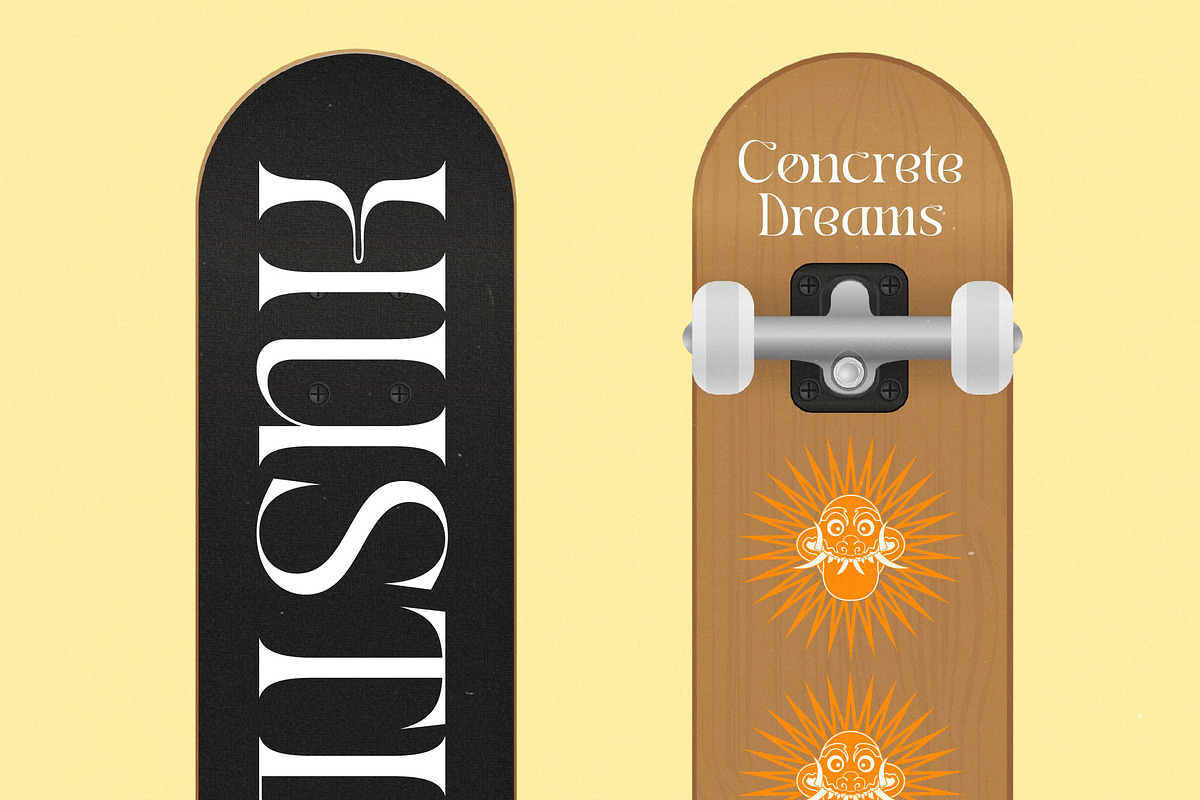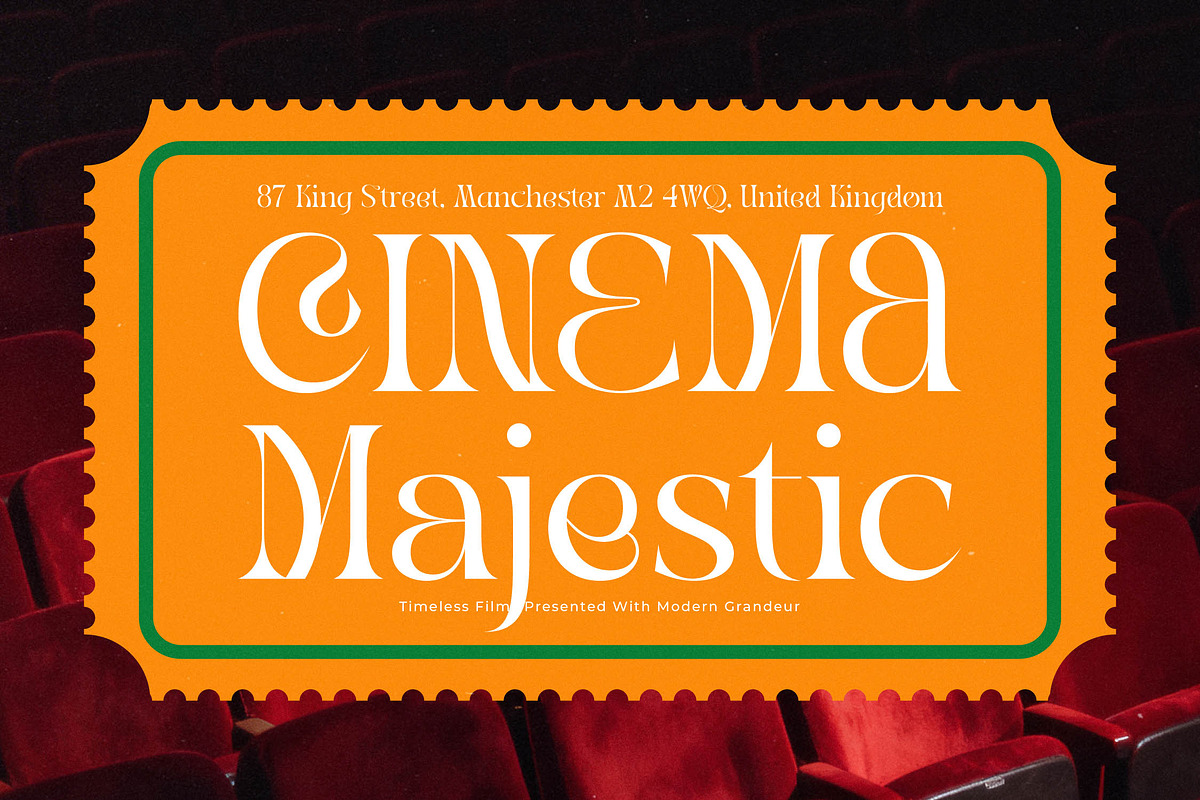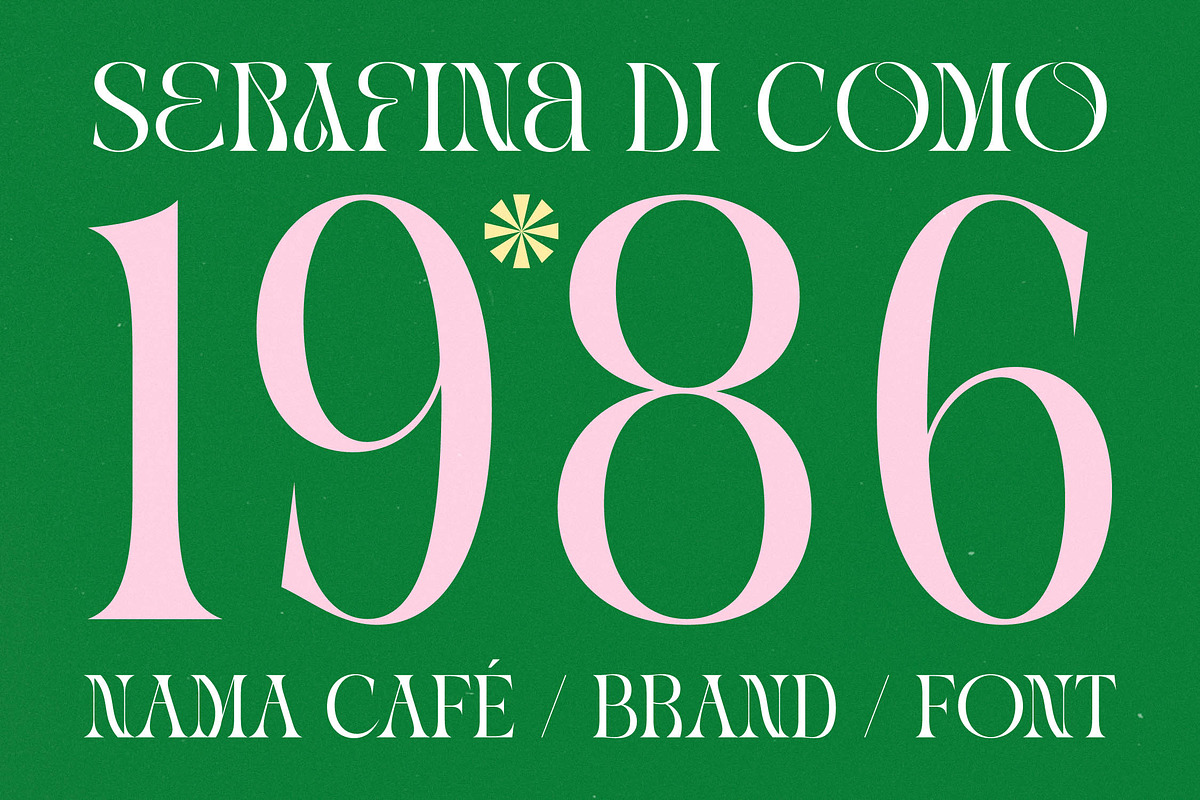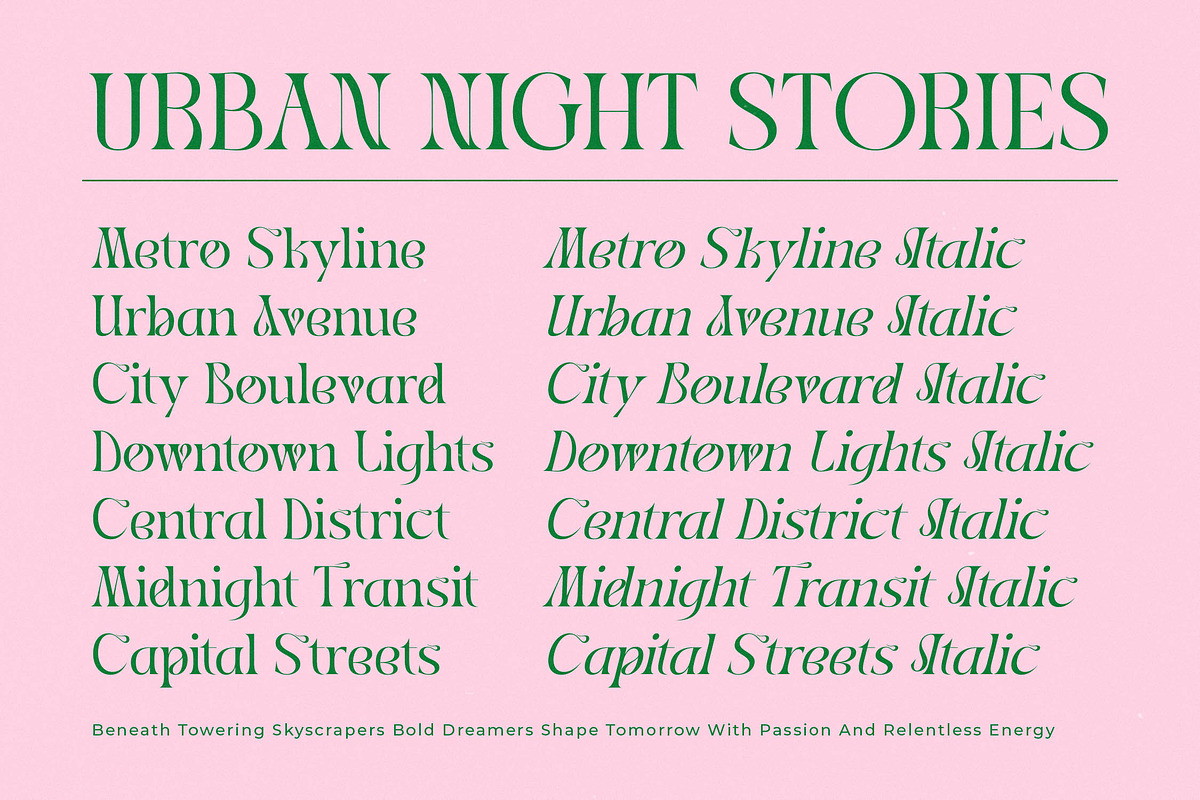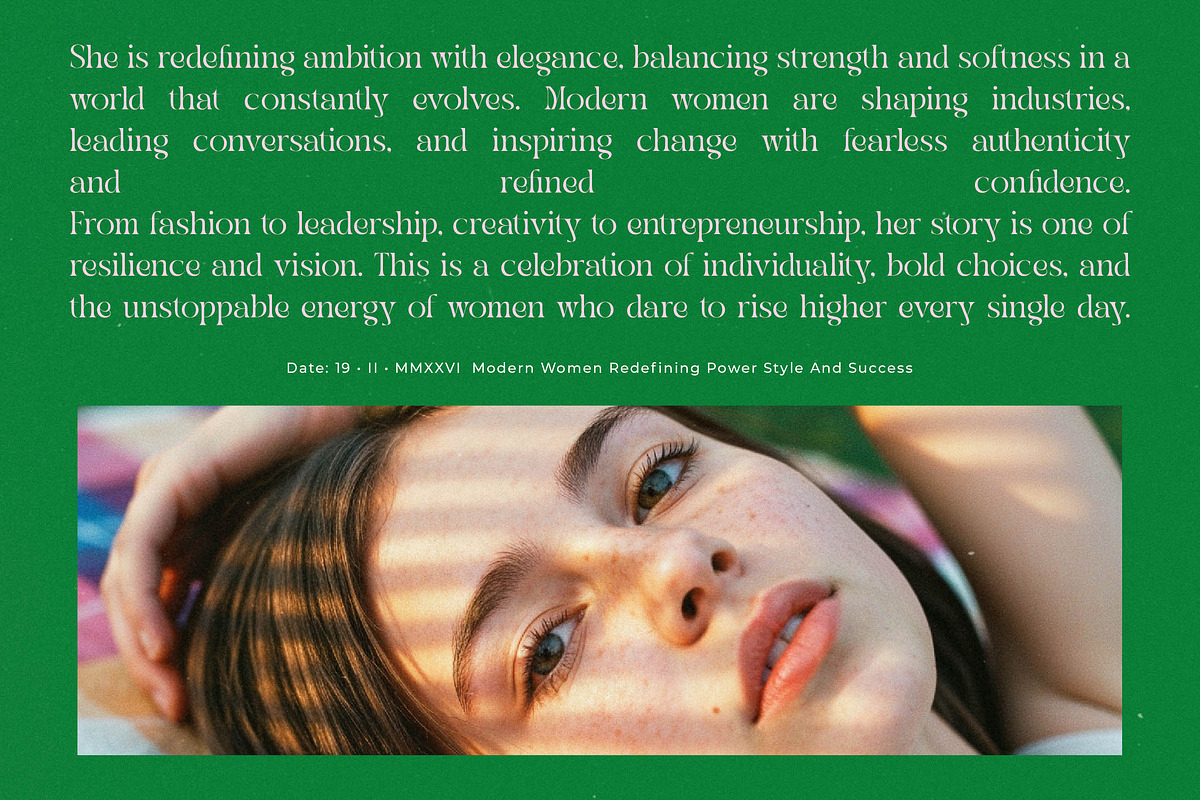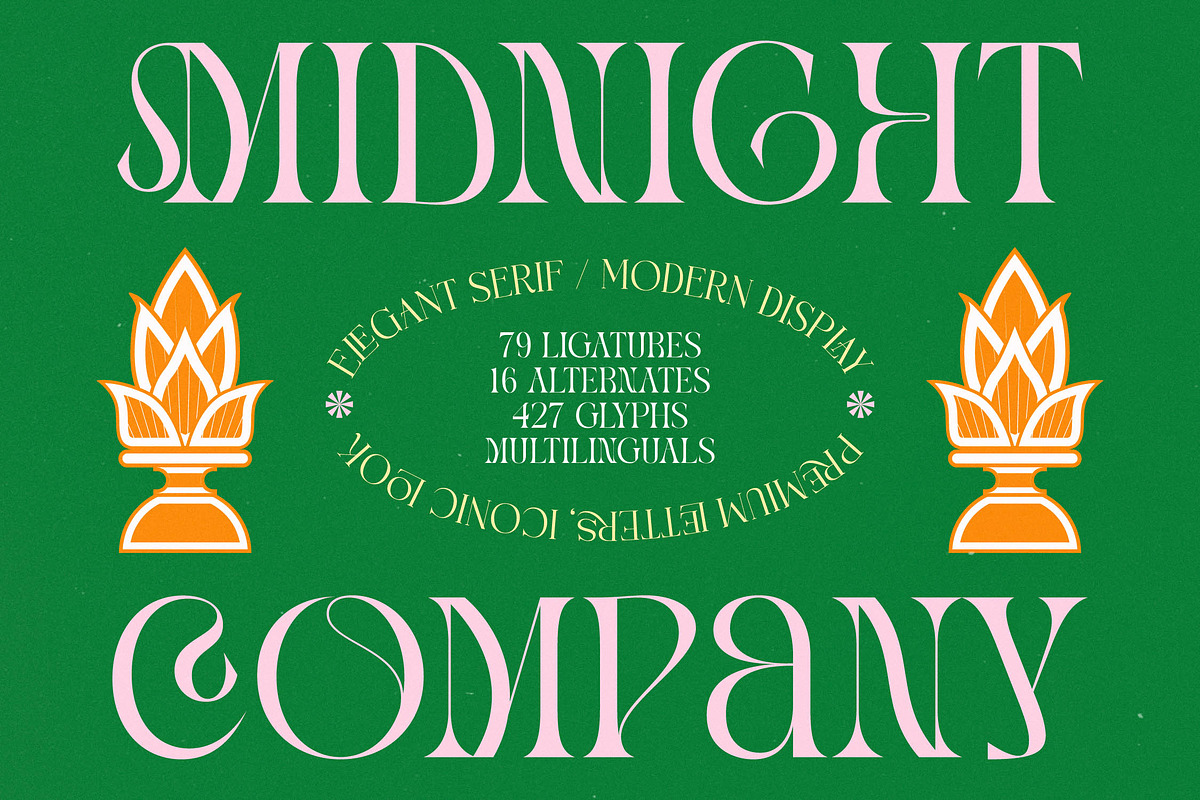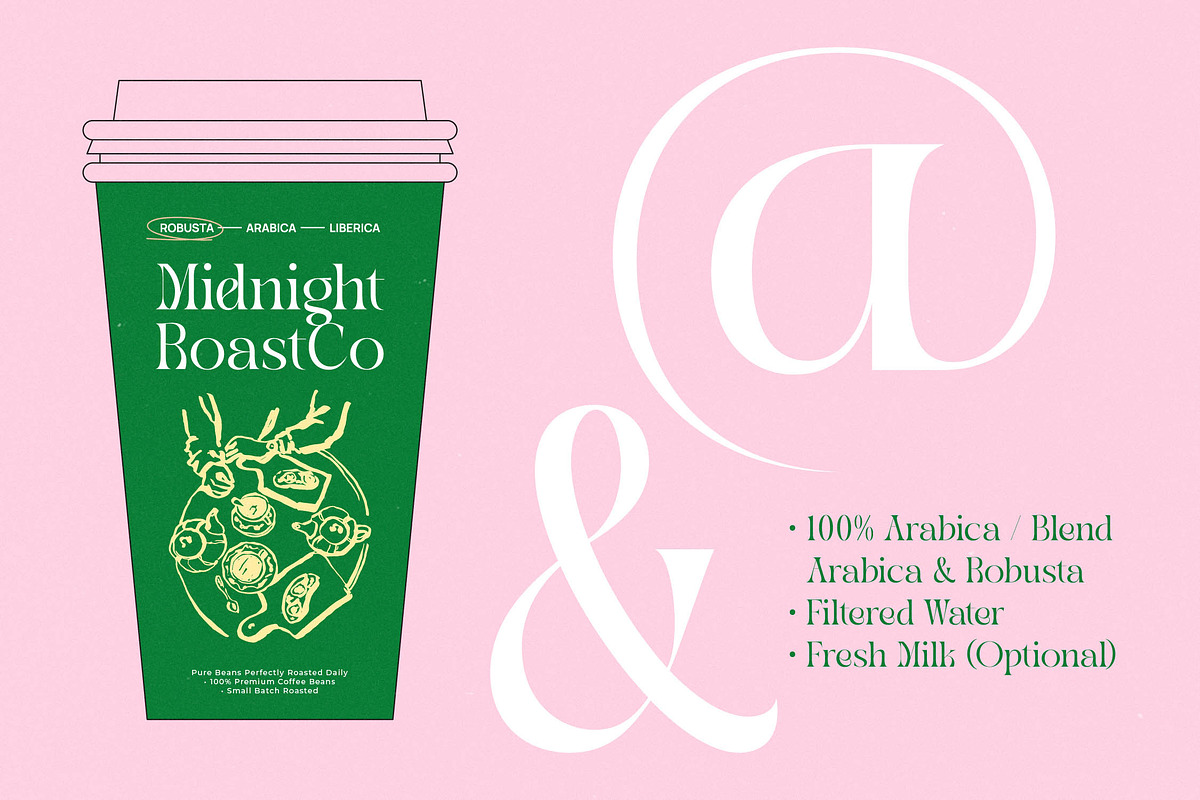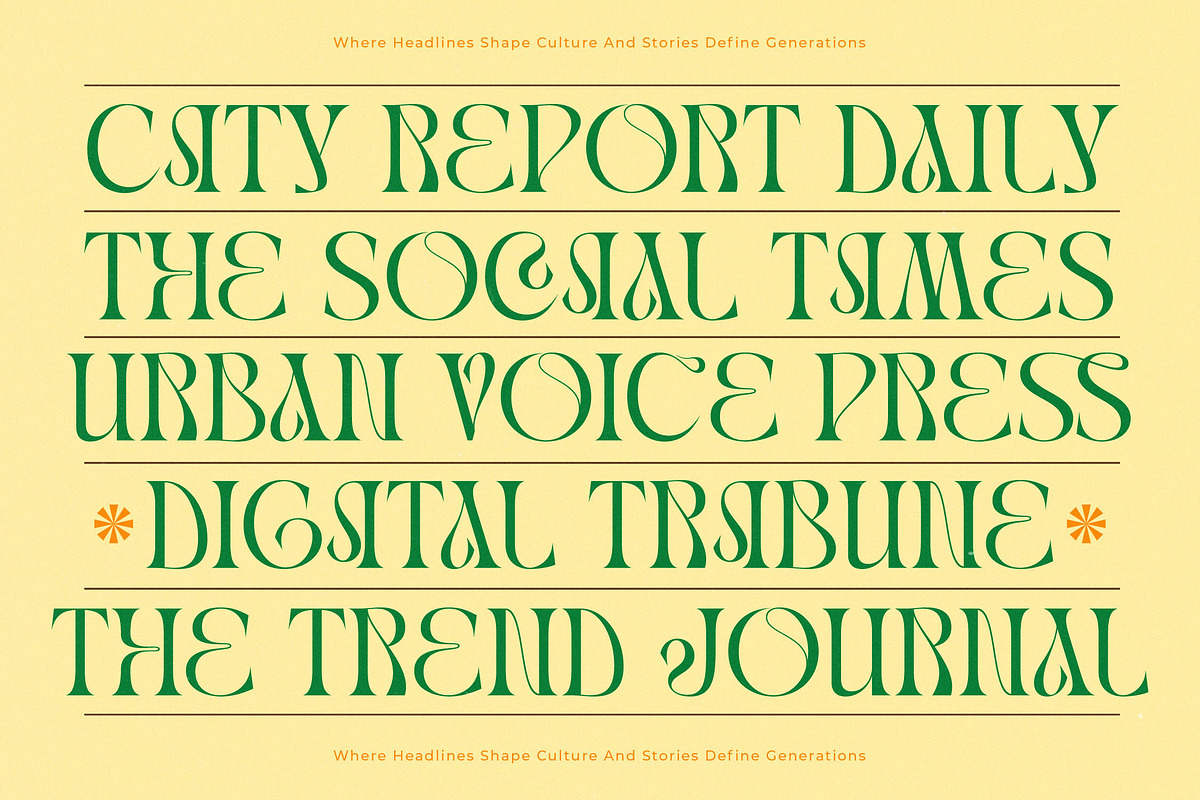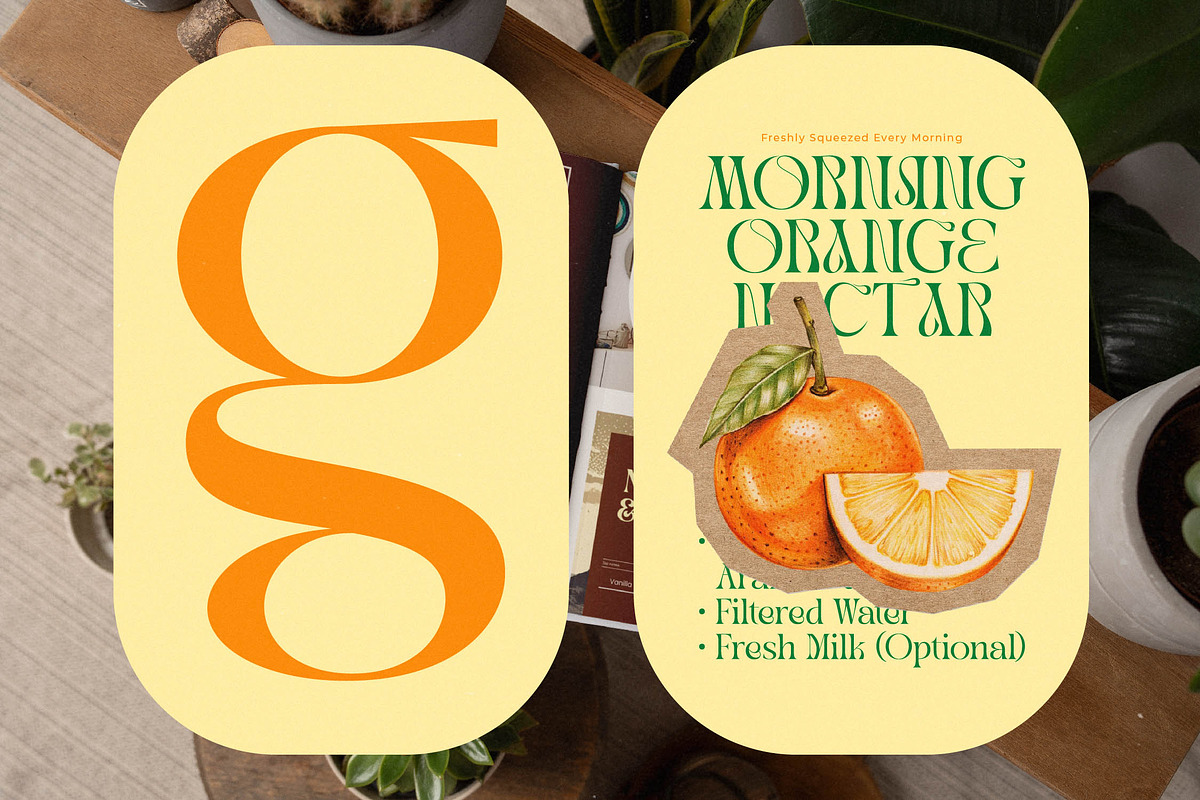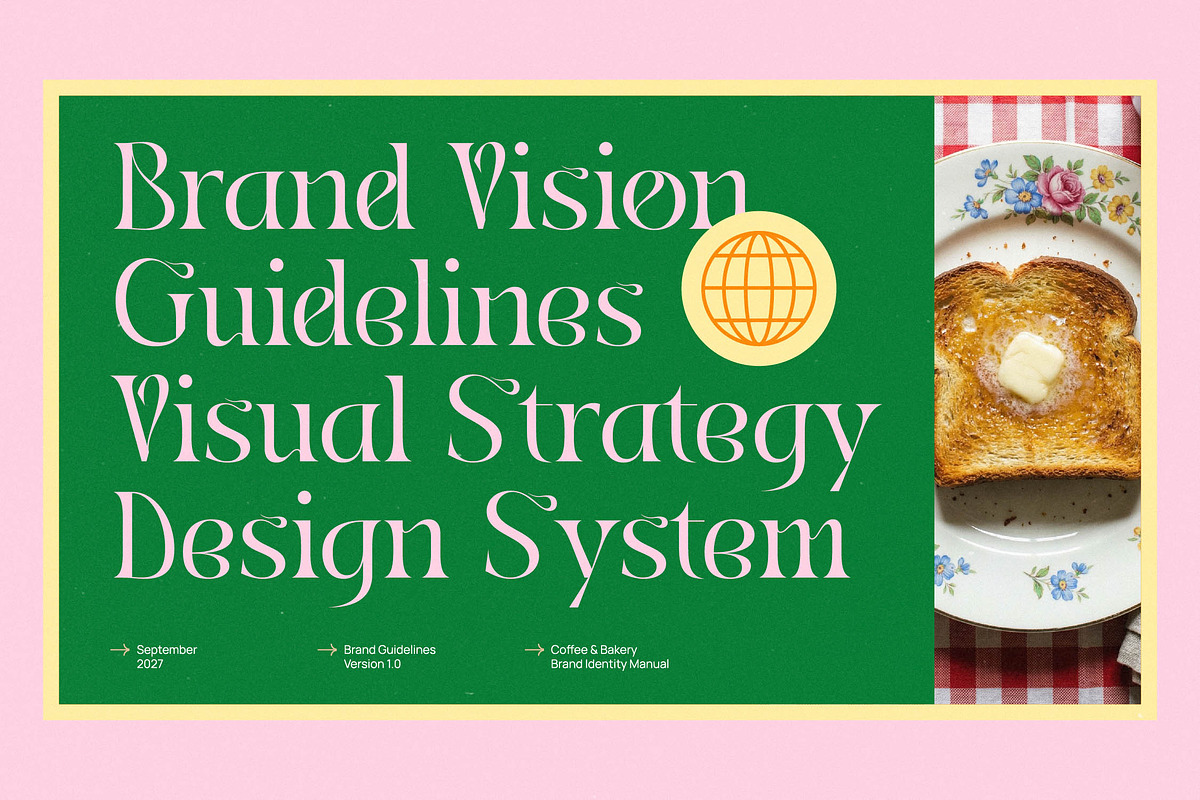
Midnight Modern Display Serif
Elevate your design projects with the breathtaking allure of Midnight, a typeface designed to command attention and evoke a sense of timeless mystery. This font transforms simple text into a visual masterpiece, blending classic elegance with a daring contemporary edge.
Inspired by the golden age of editorial design and the fluid shapes of organic art movements, this typeface captures the essence of a moonlit city skyline. It draws from a rich heritage of high-end publication aesthetics, offering a visual journey that is both nostalgic and forward-thinking.
As a modern serif display solution, this typeface excels in creating a luxury typography experience that defines premium standards. The high-contrast serif strokes provide a rhythmic flow, ensuring an editorial font quality that delivers a massive branding impact for high-end clientele.
Perfectly aligned with the current modern serif trend, this typeface addresses the growing demand for editorial display fonts that break away from the mundane. Designers seeking character-driven typography will find this font to be an essential tool for staying ahead in a competitive creative landscape.
From sophisticated logo design to cohesive branding systems, the versatility of this typeface makes it a staple for editorial layouts and luxury packaging. It is an exquisite choice for wedding stationery and high-end fashion lookbooks where every detail matters.
This comprehensive package includes an extensive library of ligatures and unique alternates that allow for custom-tailored designs. With a wide range of swashes and full multilingual support for international characters, it provides the technical flexibility required for global creative projects.